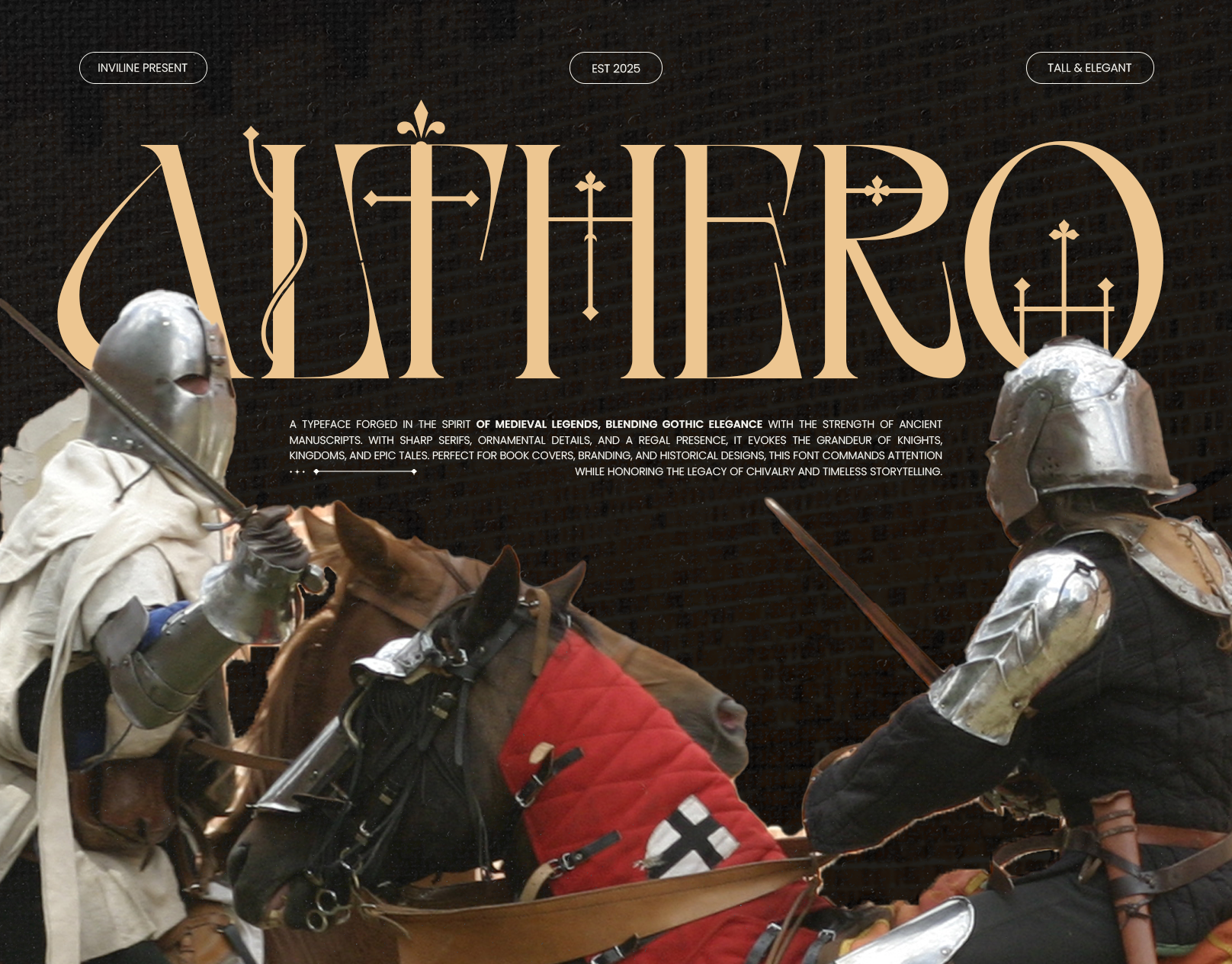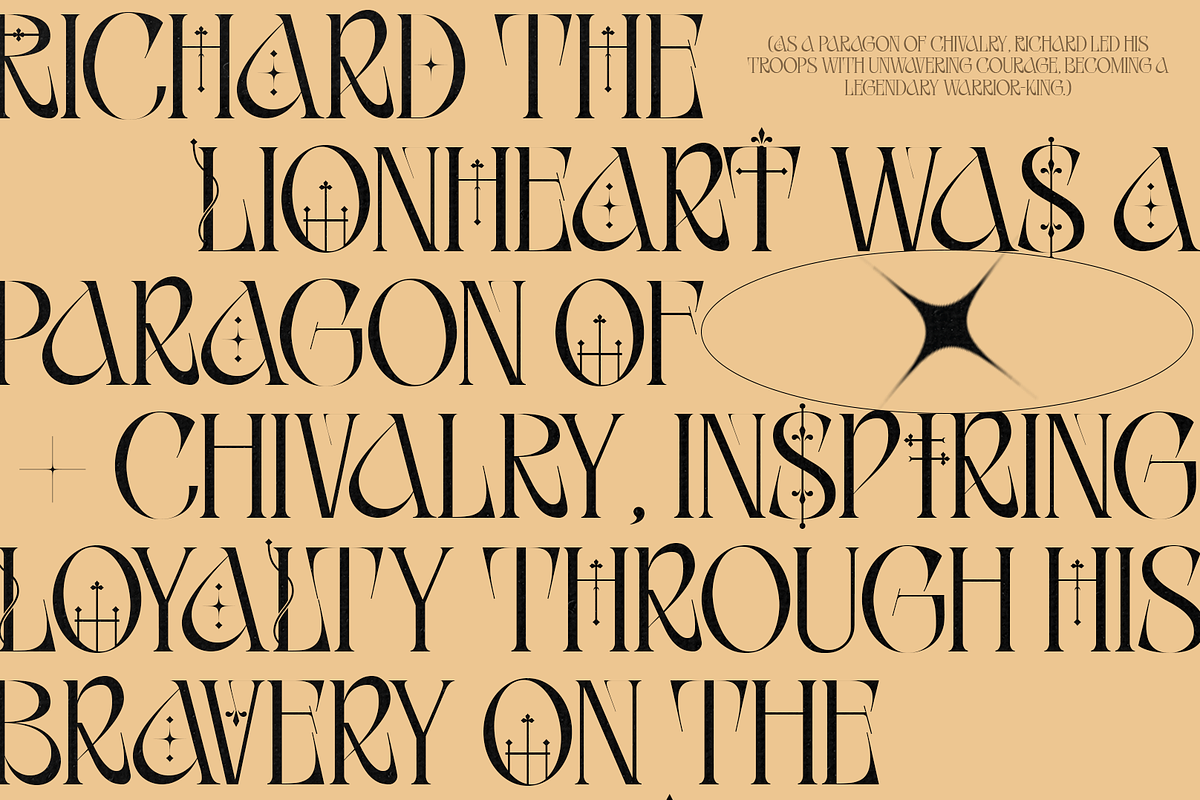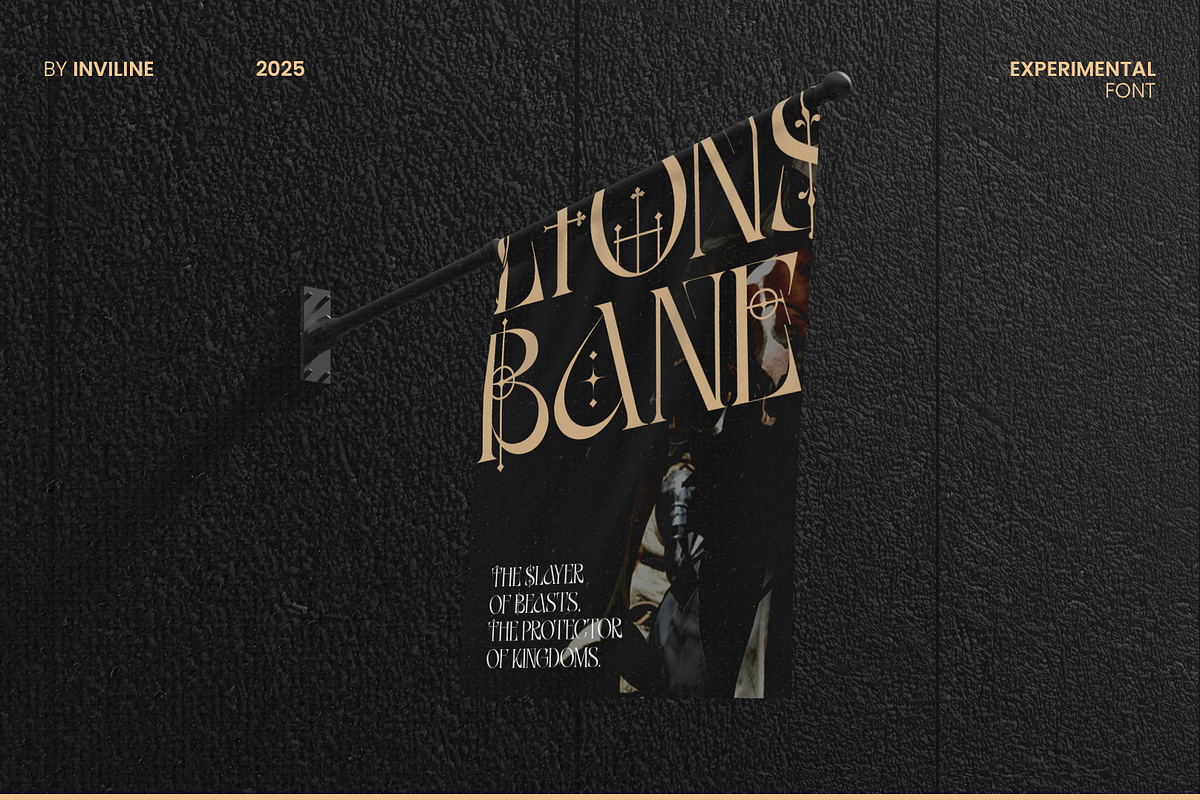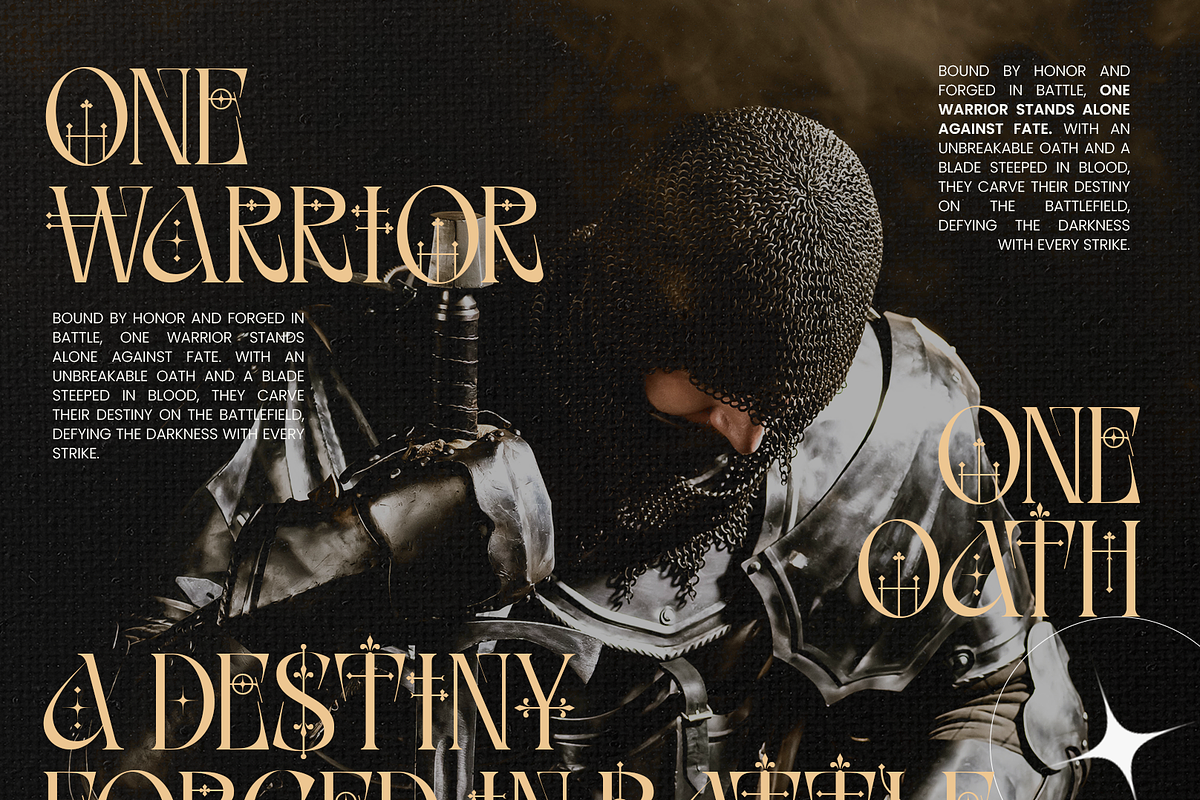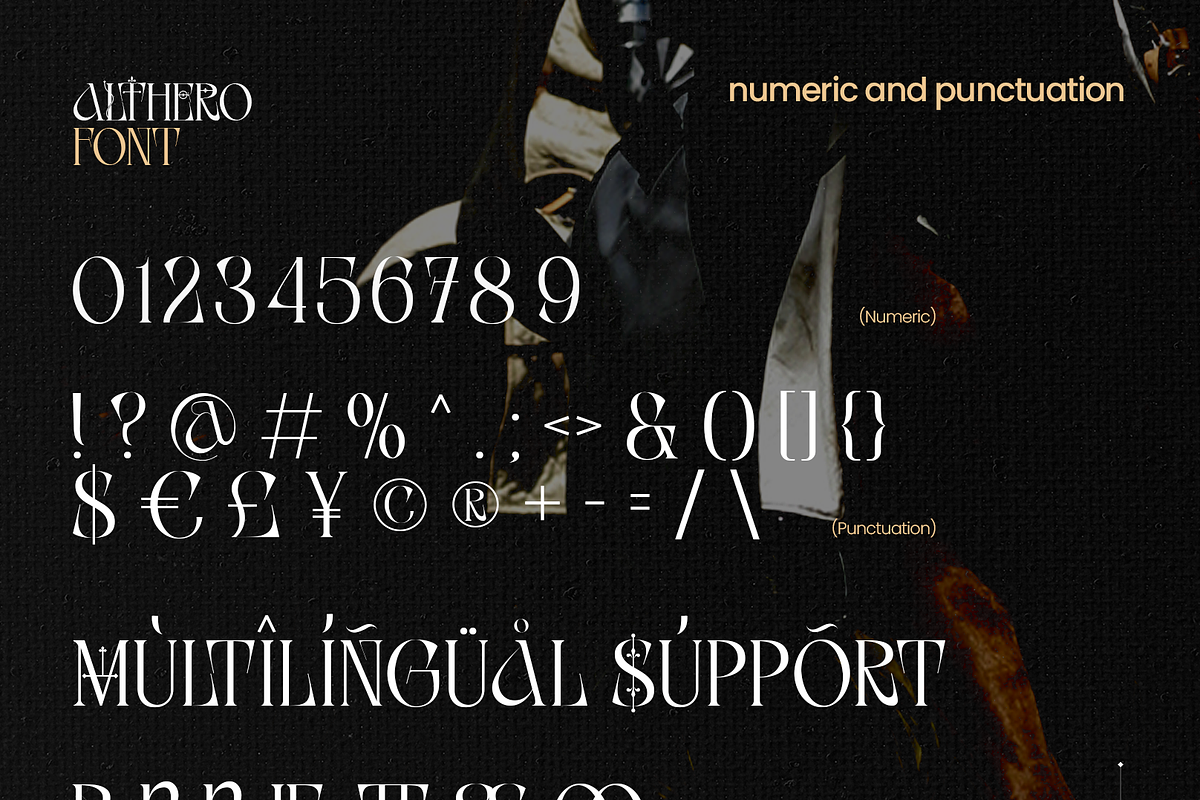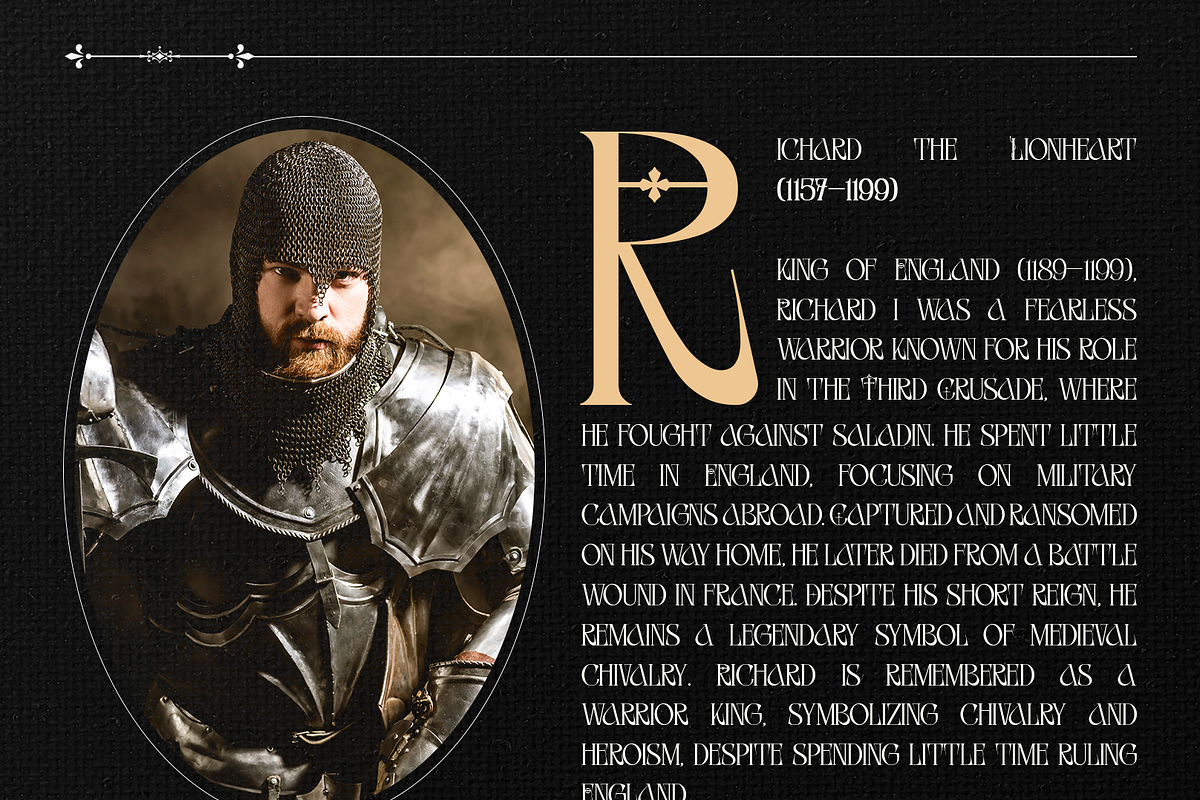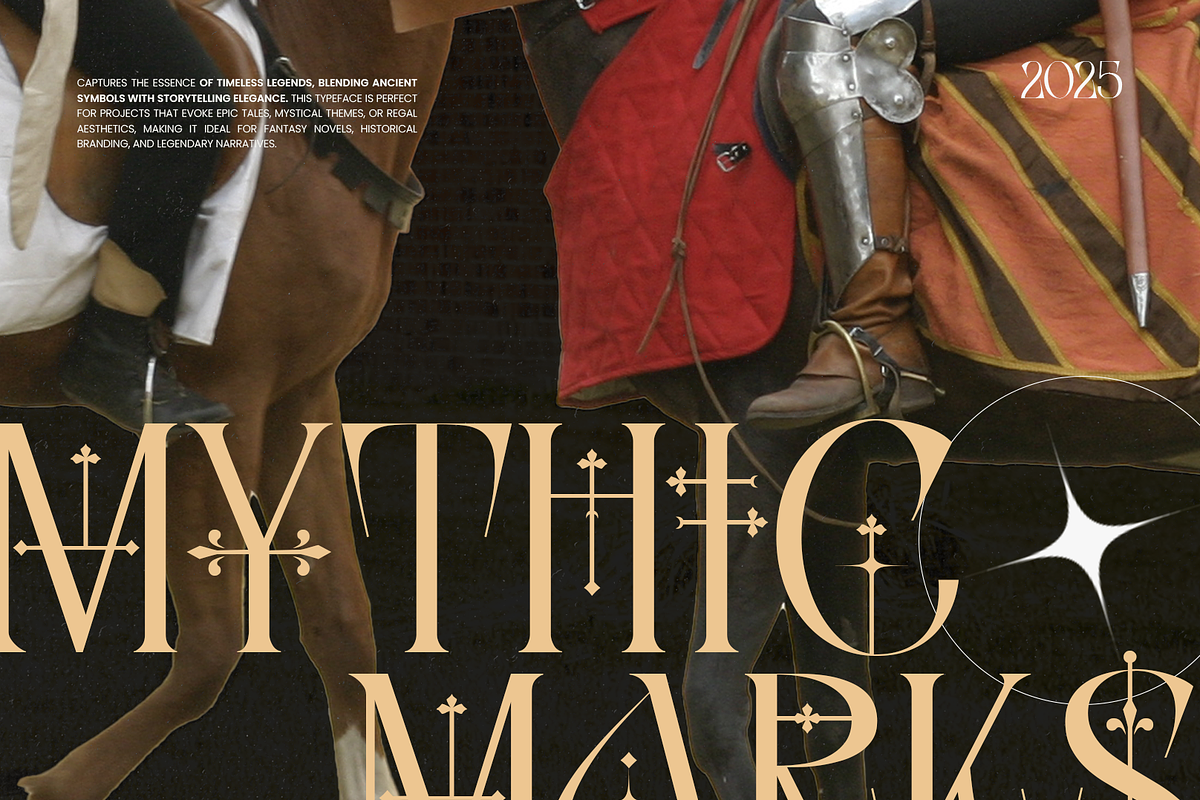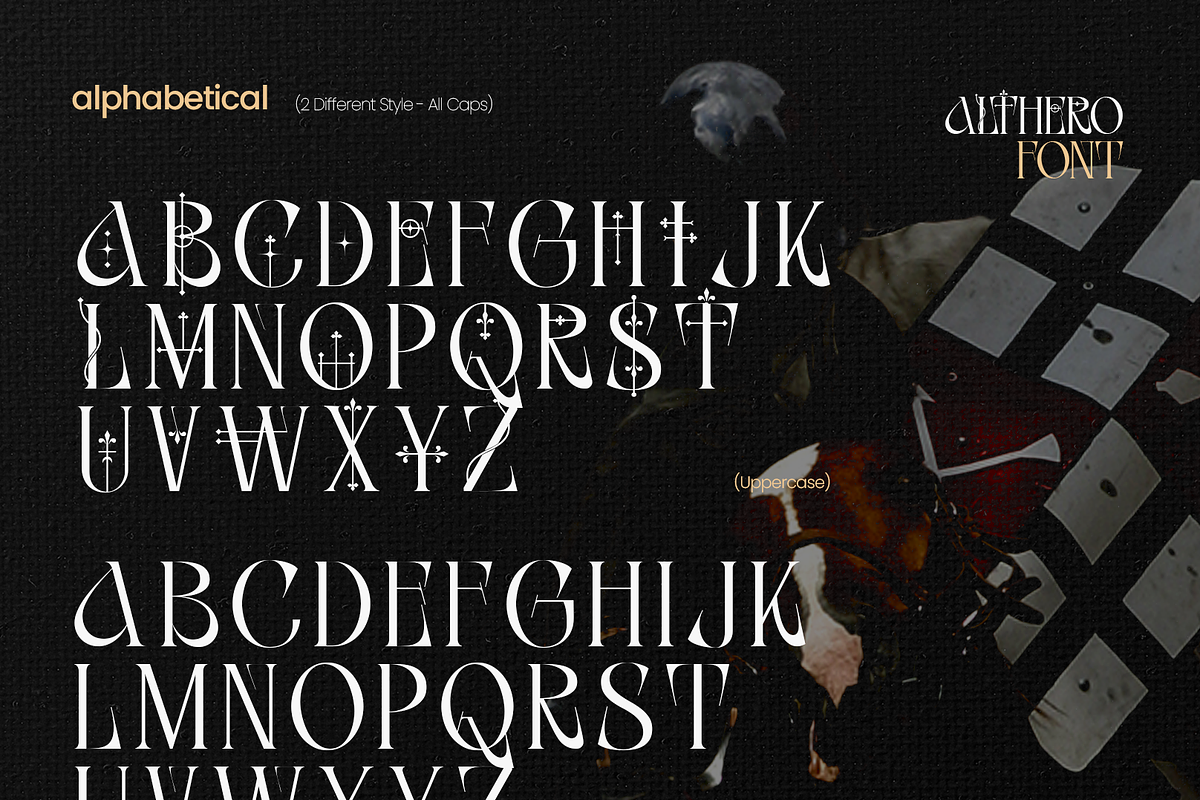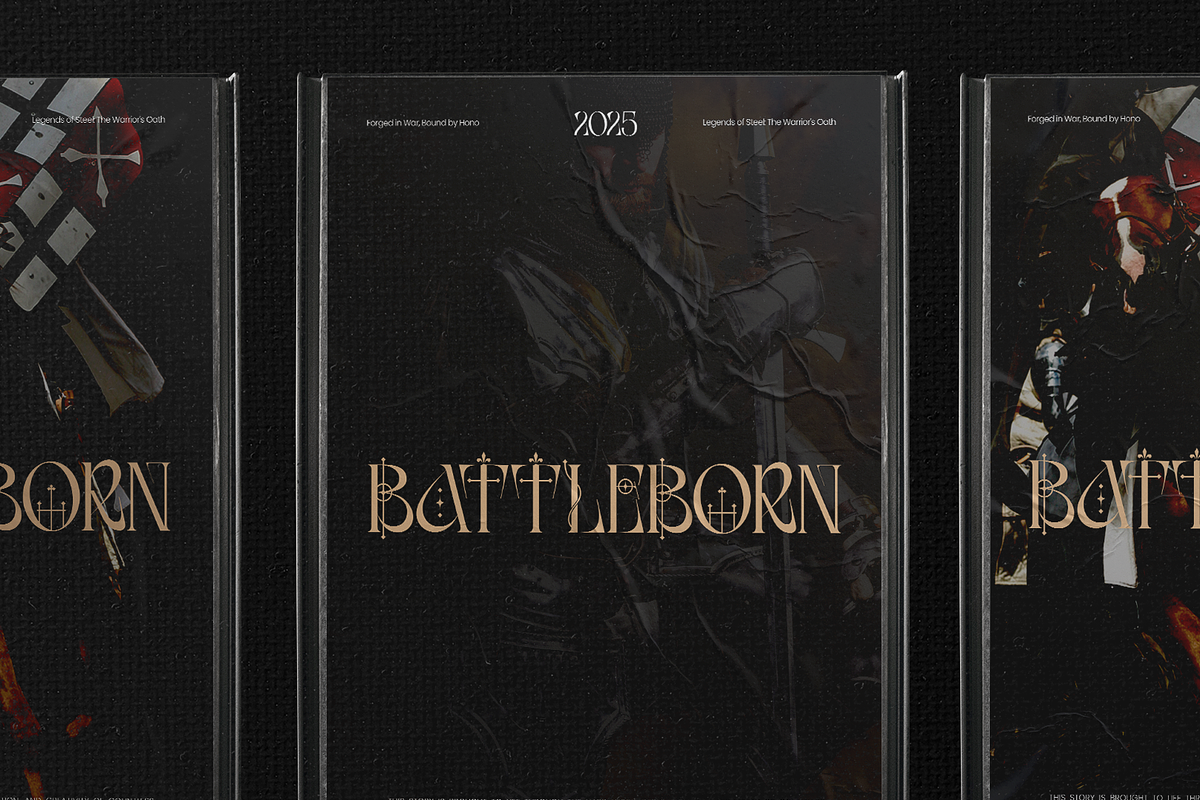
Althero - Serif Decorative Font
Althero is a decorative serif display typeface inspired by medieval manuscripts, gothic architecture, royal heraldry, knight legends, and historical European typography.
Its tall proportions, sharp serifs, ornamental cross-like details, and elegant construction create a distinctive visual identity that feels noble, dramatic, and timeless. Althero is designed for projects that need a strong historical atmosphere while still maintaining a refined contemporary appearance.
Overview
Althero combines classical serif foundations with elongated proportions and decorative medieval details. Its narrow construction allows large headlines to feel monumental without becoming overly heavy, while its ornamental forms add character to logos, titles, and display compositions.
The font works especially well for fantasy branding, medieval-inspired posters, book covers, game titles, historical events, luxury packaging, editorial layouts, and cinematic graphics.
Pair Althero with dark textures, antique gold, parchment, stone, metal, heraldic symbols, or minimalist backgrounds to emphasize its regal and gothic personality.
Althero Decorative Serif Font
Uppercase characters A–Z
Lowercase characters a–z
Numerals 0–9
Standard symbols and punctuation
Multilingual accented characters
Decorative character forms
Medieval-inspired decorative serif style
Gothic and historical visual influence
Tall and elegant letter proportions
Sharp serif details
Ornamental cross-inspired elements
Refined high-contrast construction
Strong uppercase display characters
Uppercase and lowercase alphabet
Complete numerals
Standard symbols and punctuation
Strong visual impact at medium and large sizes
Suitable for print and digital applications
Ideal for logos, titles, headlines, and short phrases
Works beautifully with fantasy, medieval, gothic, and luxury imagery
Easy to pair with classic serif or minimalist sans serif fonts
Stylistic Alternates: decorative alternate forms appear to be part of the font system, but the exact supported letters are not clearly identifiable from the supplied preview
18 Ligature Pairs: st, br, cr, ct, fr, ist, op, or, ox, th, Tr, tt, wn, ff, fi, fl, ffi, ft — only list these if every combination is included and tested in the final font file
Multilingual Support: Western European characters with diacritics (À, Á, Â, Ç, É, Ñ, Ø, Ü, etc.)
Ideal For / Use Cases
Medieval branding
Fantasy logo design
Historical posters
Knight-themed graphics
Fantasy book covers
Game titles
Film titles
Gothic branding
Royal identities
Heraldic designs
Luxury packaging
Premium labels
Editorial headlines
Magazine covers
Museum exhibitions
Historical events
Medieval invitations
Restaurant branding
Beverage labels
Album artwork
Merchandise graphics
T-shirt designs
Tattoo studio branding
Decorative signage
Cinematic visual identities
Use Althero at medium or large sizes to showcase its tall proportions, sharp serifs, and ornamental details. It works best for logos, headlines, fantasy titles, product names, posters, and short statements rather than long paragraphs.
Pair Althero with a clean serif or minimalist sans serif font for descriptions, dates, captions, and supporting information. Antique gold, black, deep brown, burgundy, silver, and parchment tones can strengthen its medieval character.